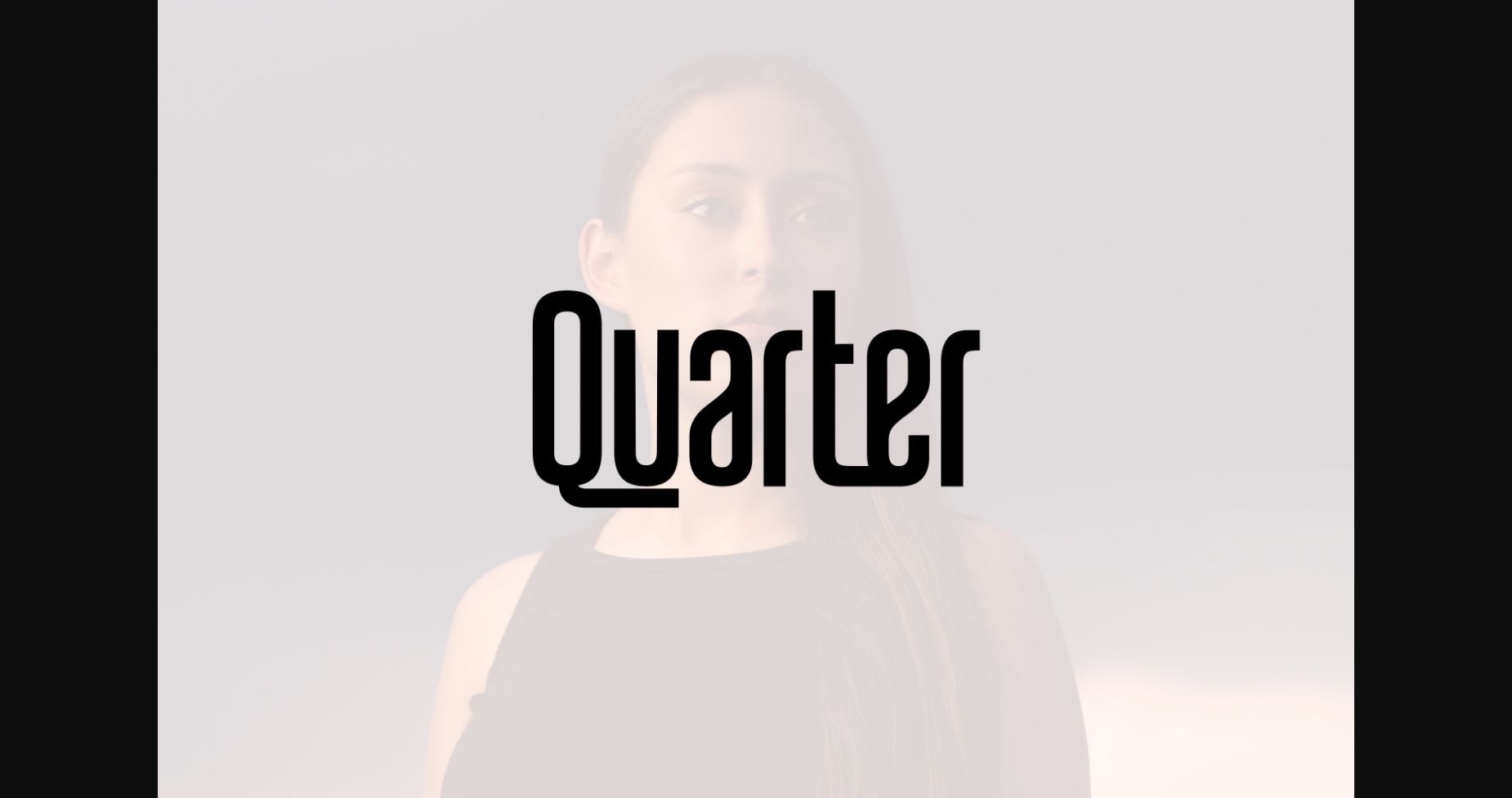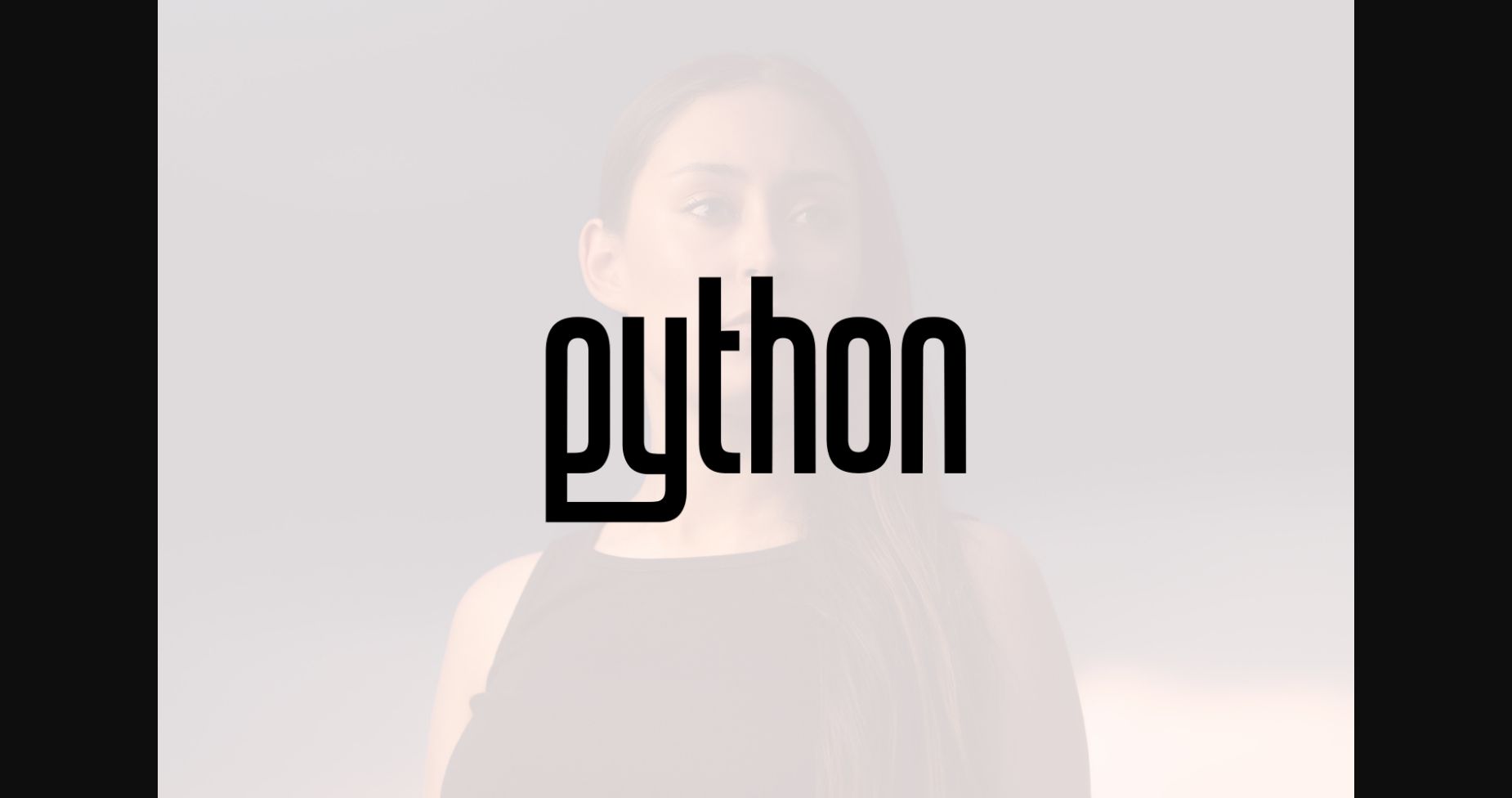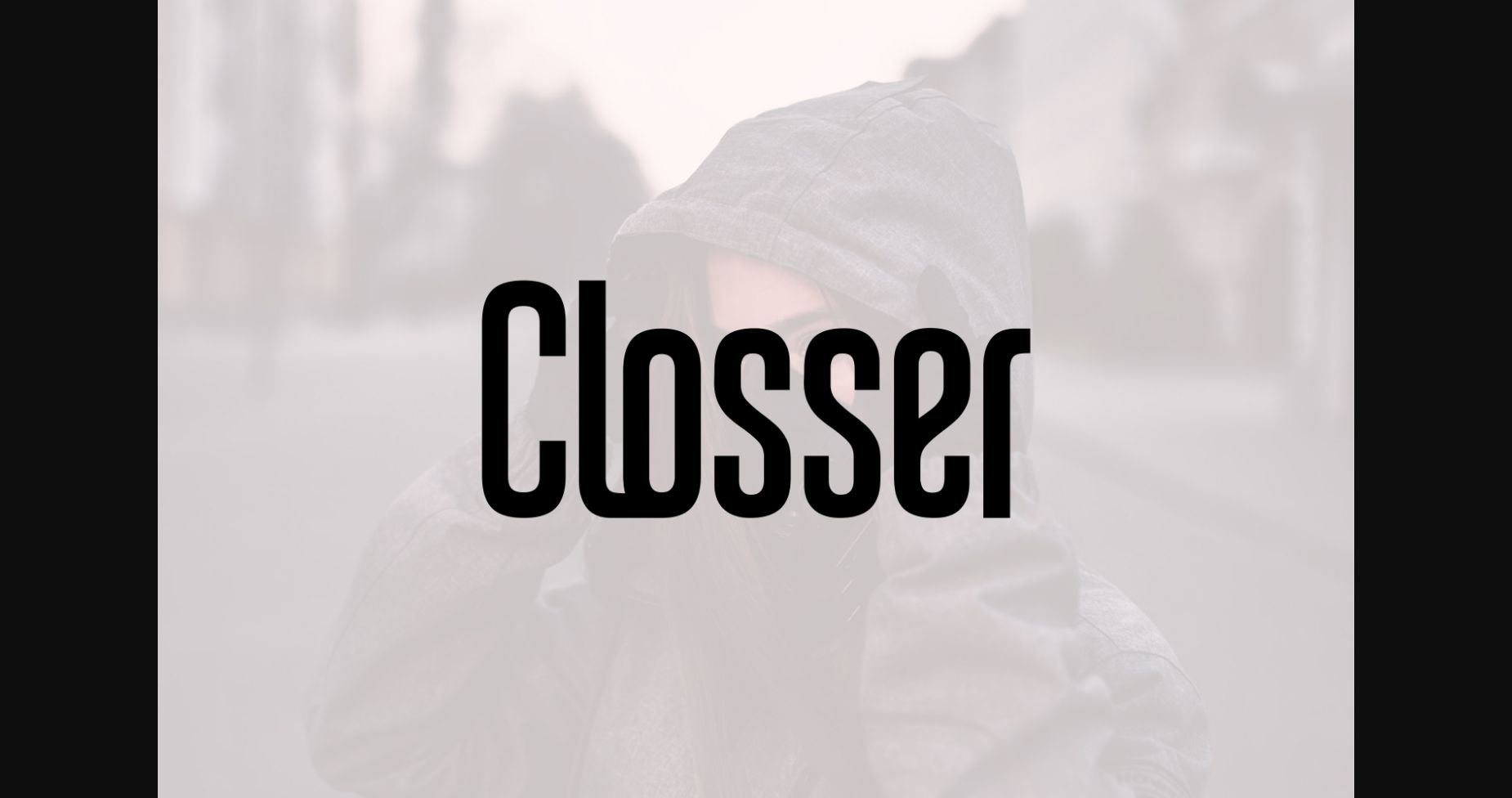
About Quarter Font
Quarter is an extremely modern sans serif font. It can keep minimalism at its best levels and is a great choice for creative and classic typography designs. This font is suitable for creating professional logos, marketing graphics, and more!